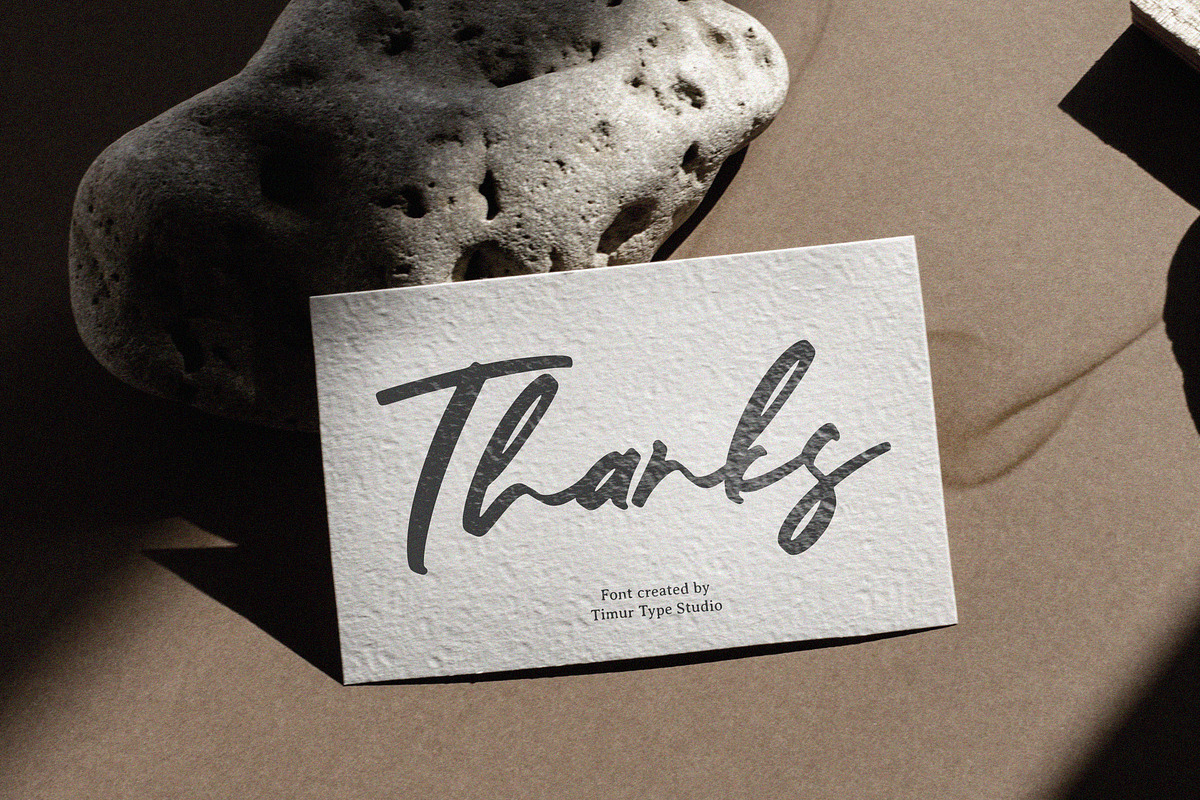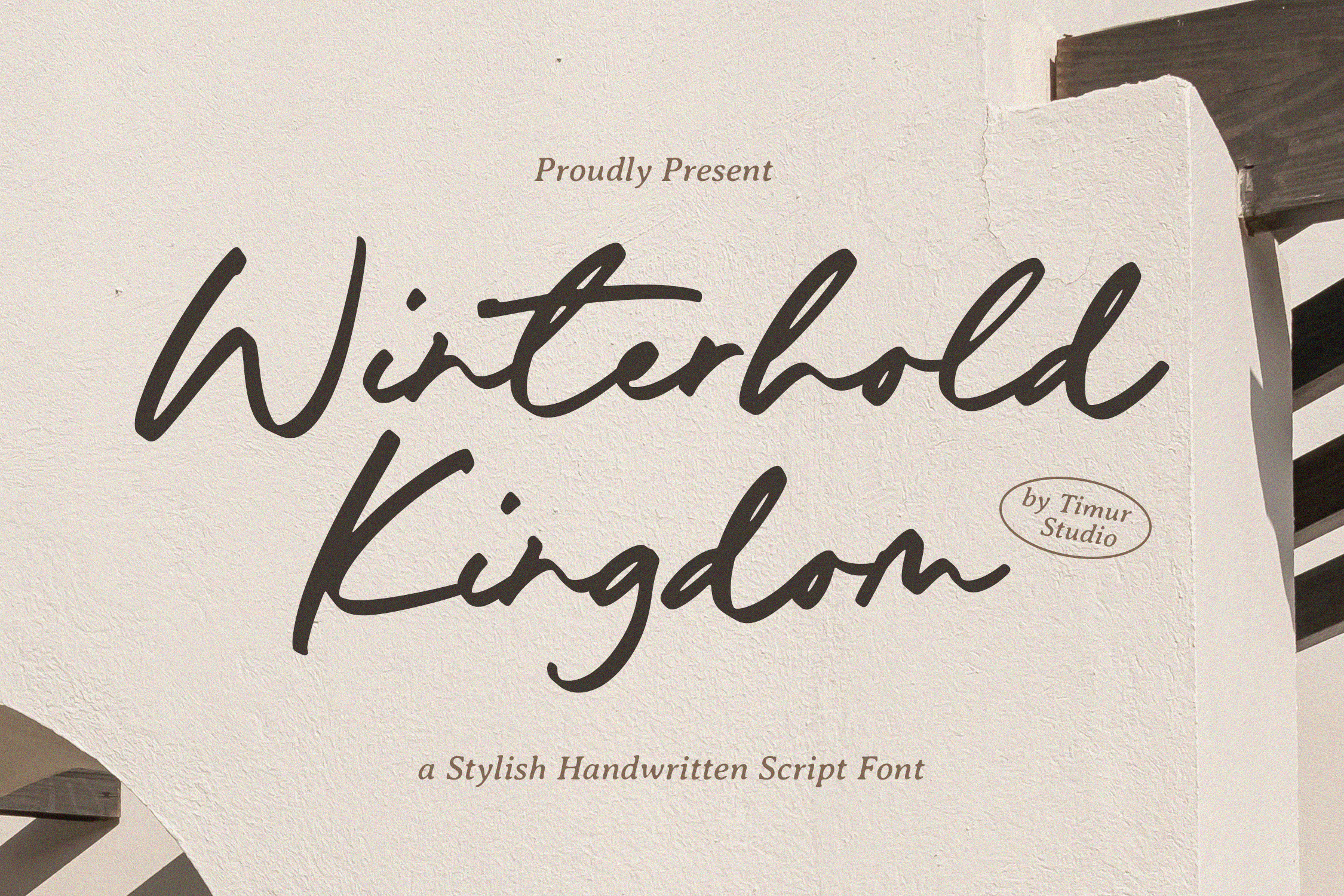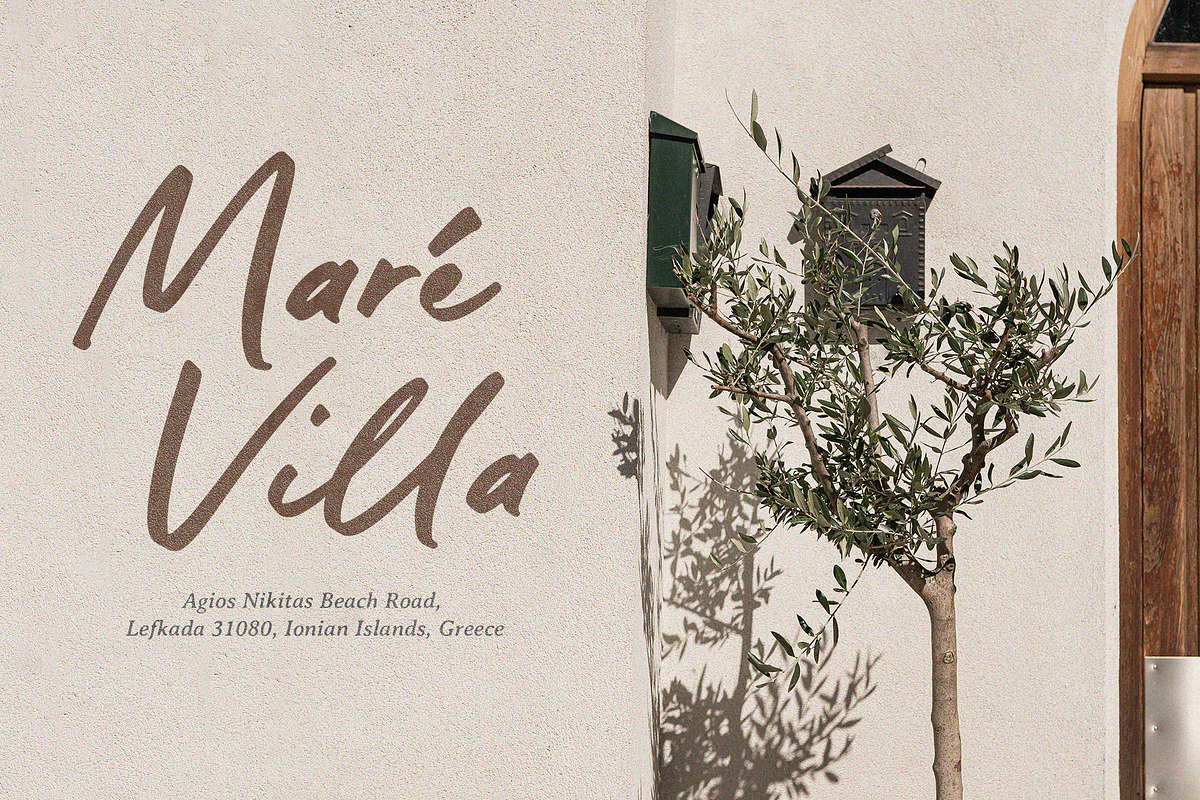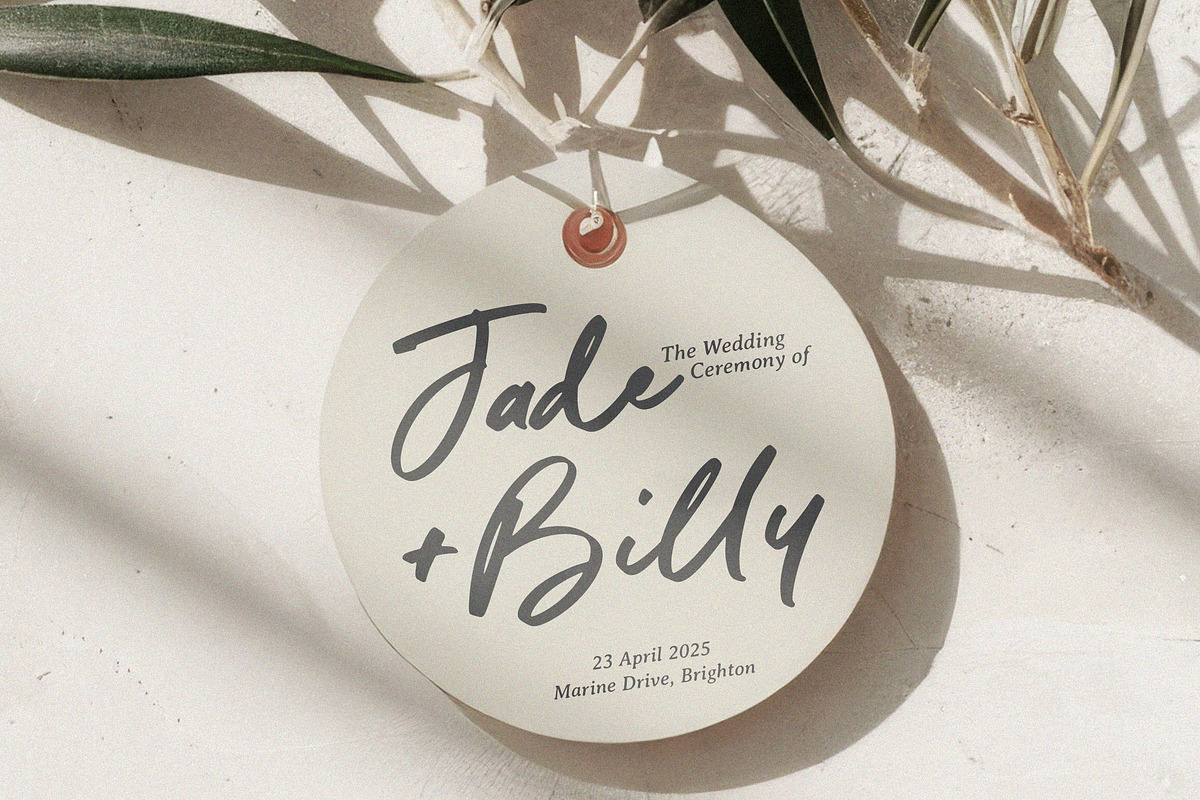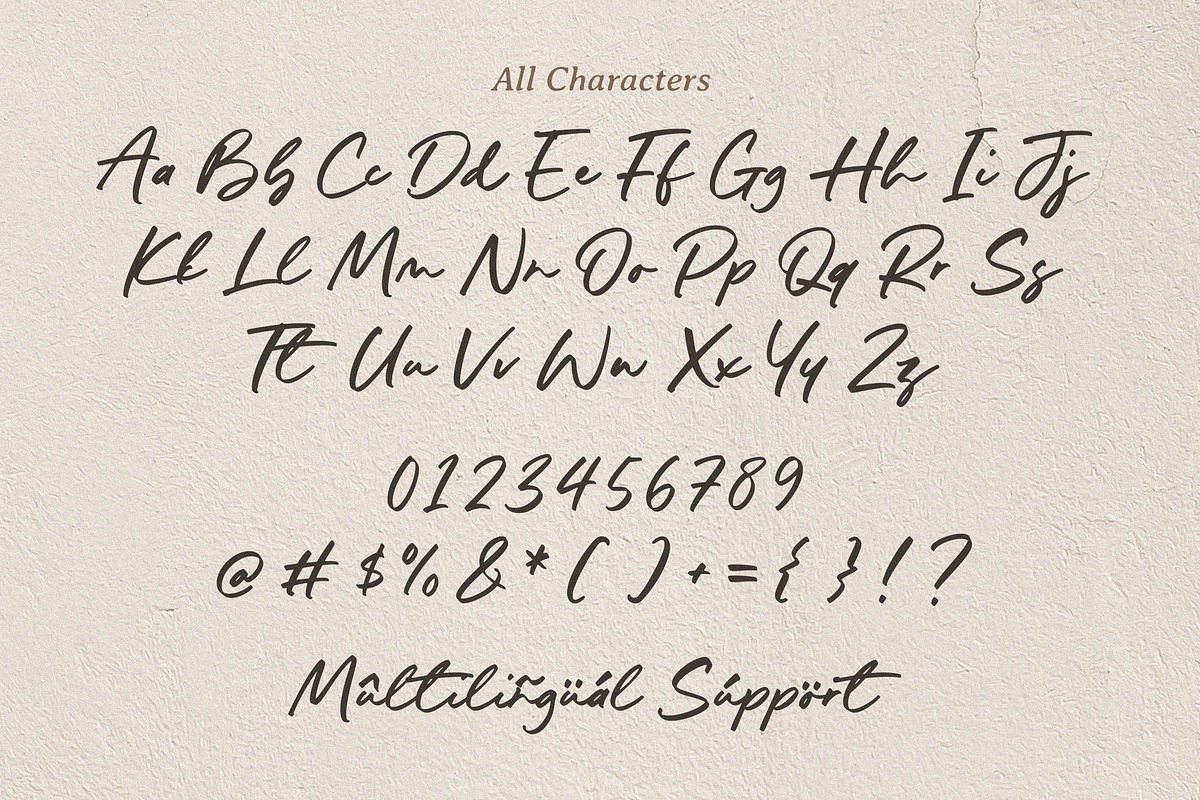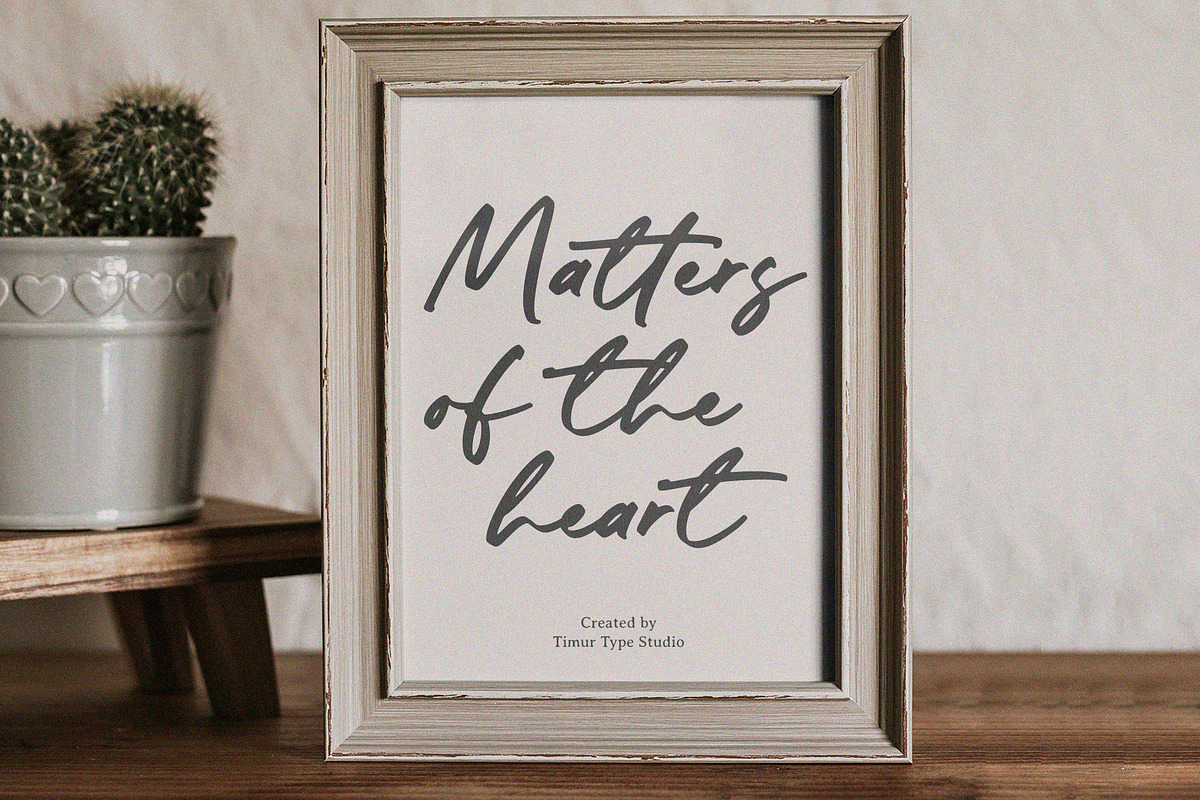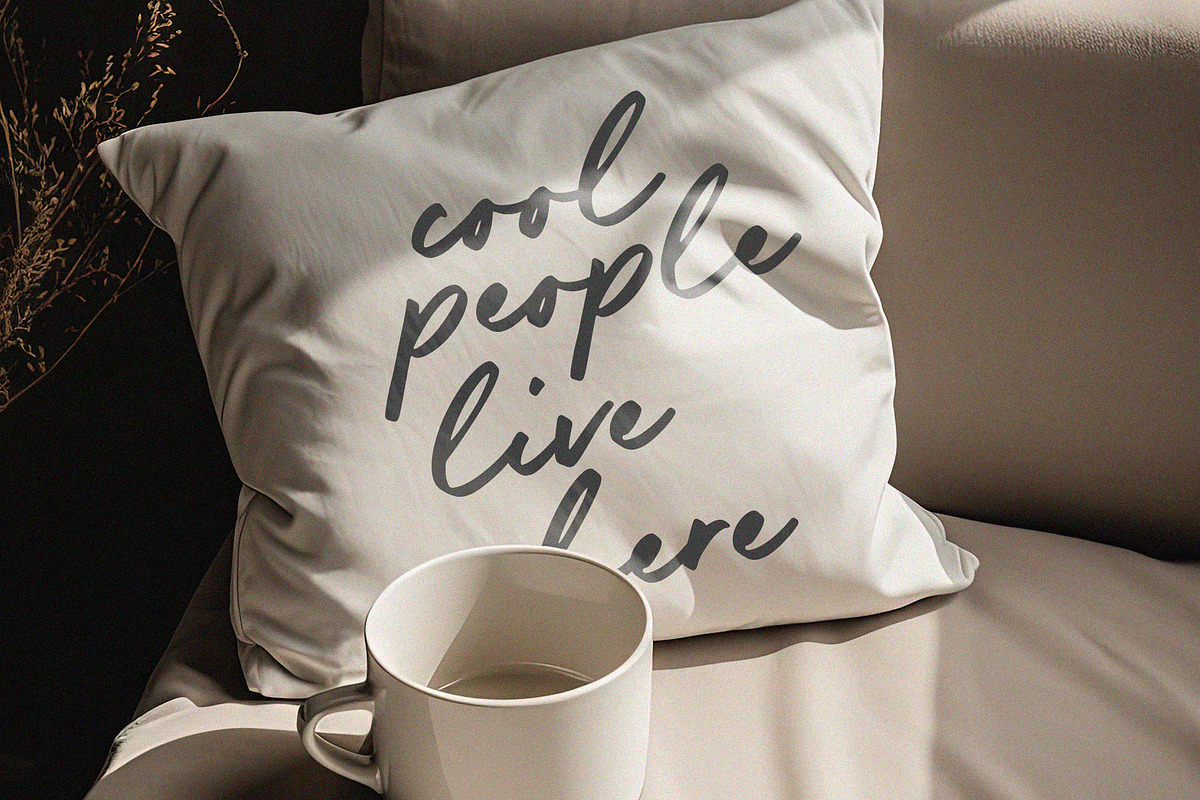
Winterhold Kingdom Font
Introduced by Timurtype Studio!
Winterhold Kingdom is a Stylish Handwritten Script Font
This font is a stylish handwritten script font that blends elegance with a touch of whimsy. Its fluid strokes and natural flow make it perfect for branding, invitations, social media graphics, and other creative projects that call for a sophisticated touch. Winterhold Kingdom captures the charm of modern calligraphy with a graceful, trendy flair.
Winterhold Kingdom Font also supports multilingualism